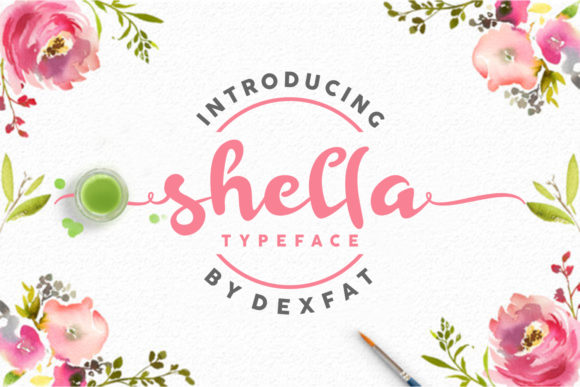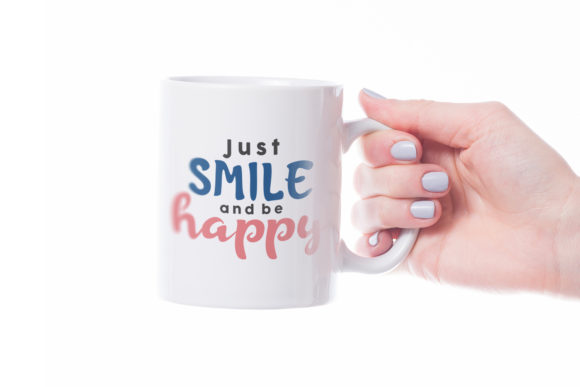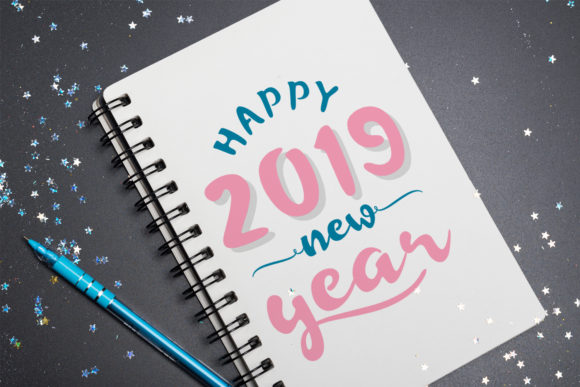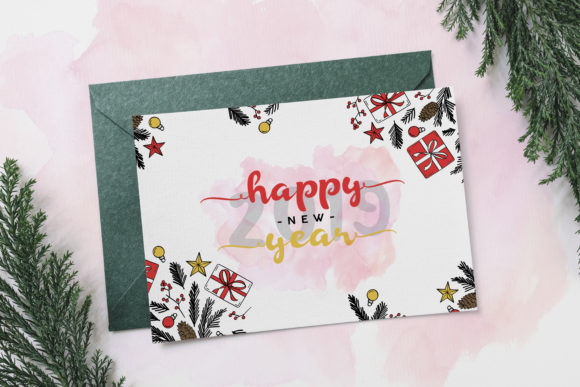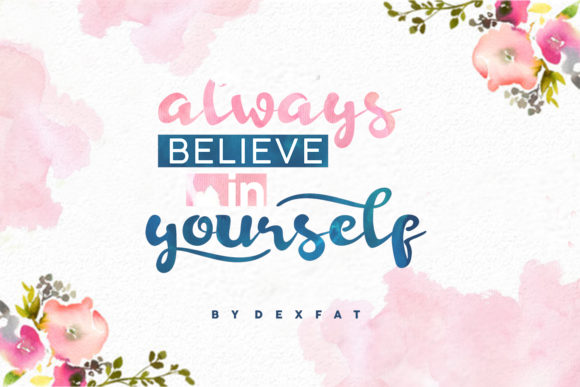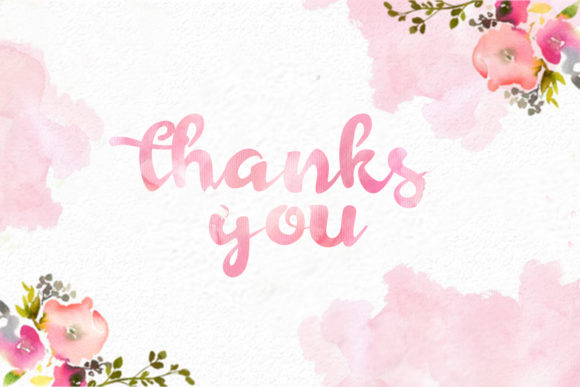
Shella Script Font
About Shella Script Font
The Shella is a fun, festive handwritten font. It comes packed with stunning swashes which will give your design an elegant feel.